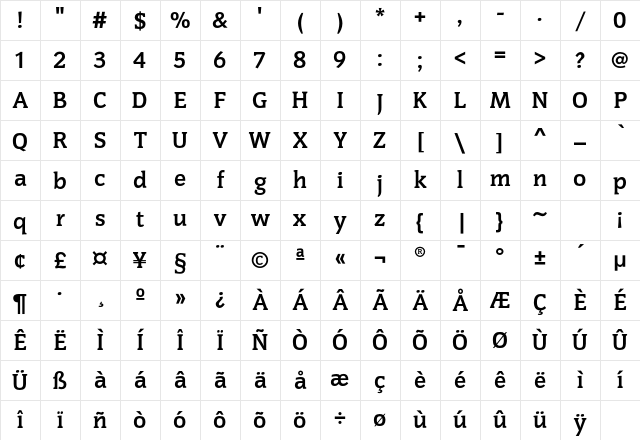
CongressEF Bold
Design Context for CongressEF
CongressEF is a composed and adaptable typeface that performs quietly and consistently across a wide range of design contexts. Its bold stroke weight gives it real presence on the page.
Pro Tip: Use CongressEF in both headline and body roles to test its range before committing to a single application.